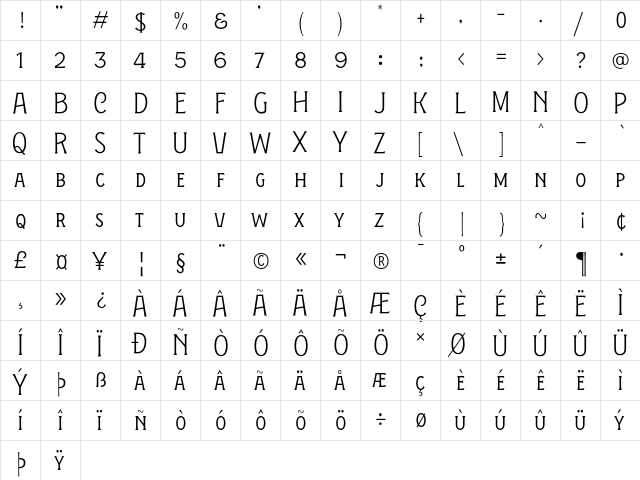
Figuera Variable Light Condensed
| Foundry | AdamFathony |
| Designer | Adam Fathony |
Design Context for Figuera Variable Typeface
Figuera Variable offers clean, dependable letterforms without strong stylistic allegiance, making it a practical choice for designers who need flexibility. Its slender proportions lend an understated elegance to any composition. The condensed width makes it efficient for tight spaces without sacrificing legibility.